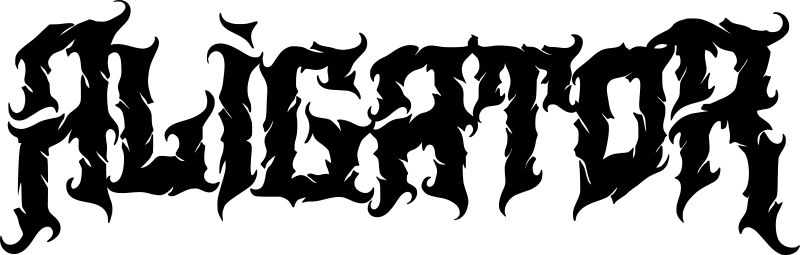
Aligator Font
Grab all attention to your text layouts with this gothic font. This one comes with jagged and pointy characters. Aligator works perfectly for logos, posters, TV shows, and so forth. Bear in mind that this case doesn’t include lowercase letters. Click on the download button without a second thought and impress your customers with the results.